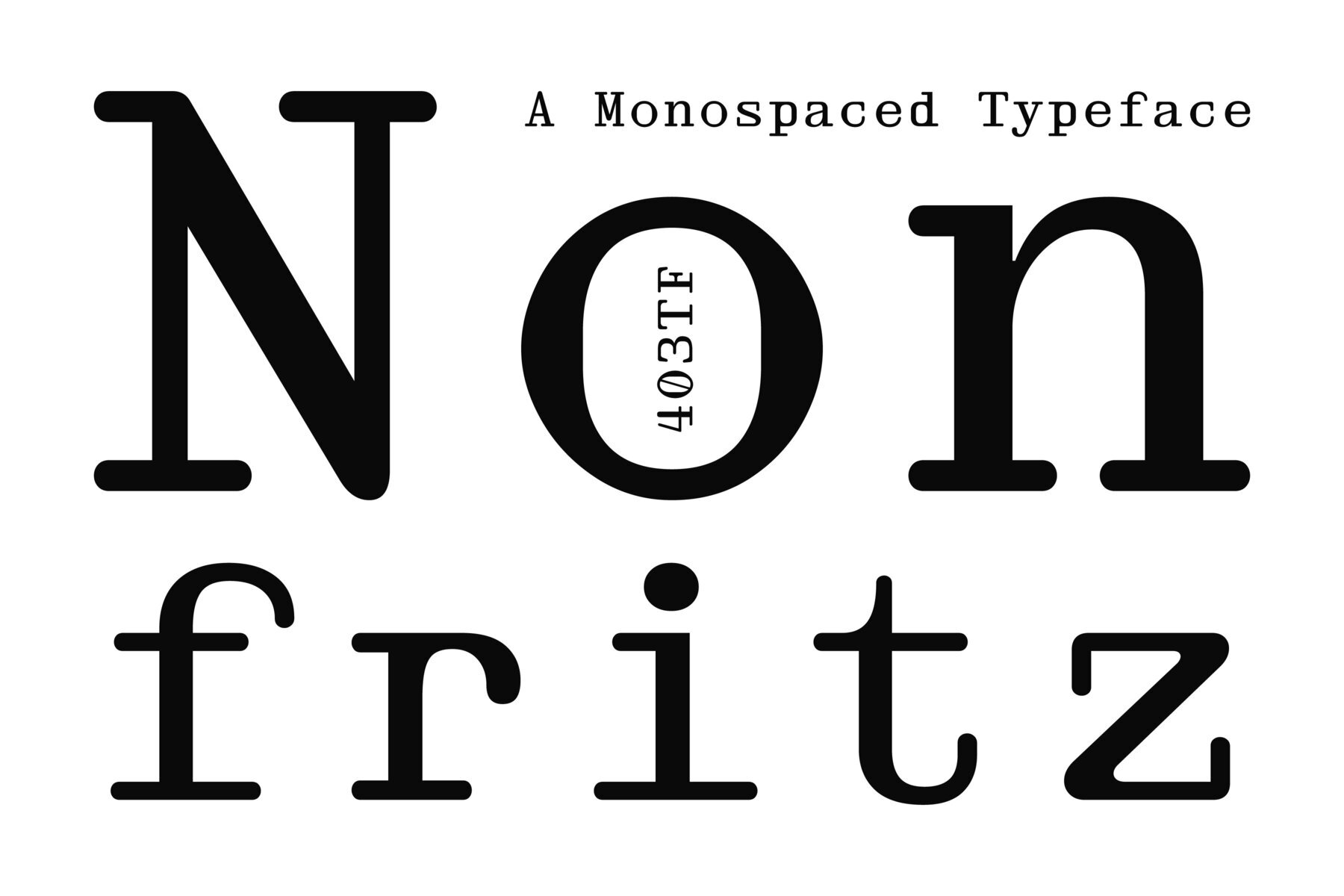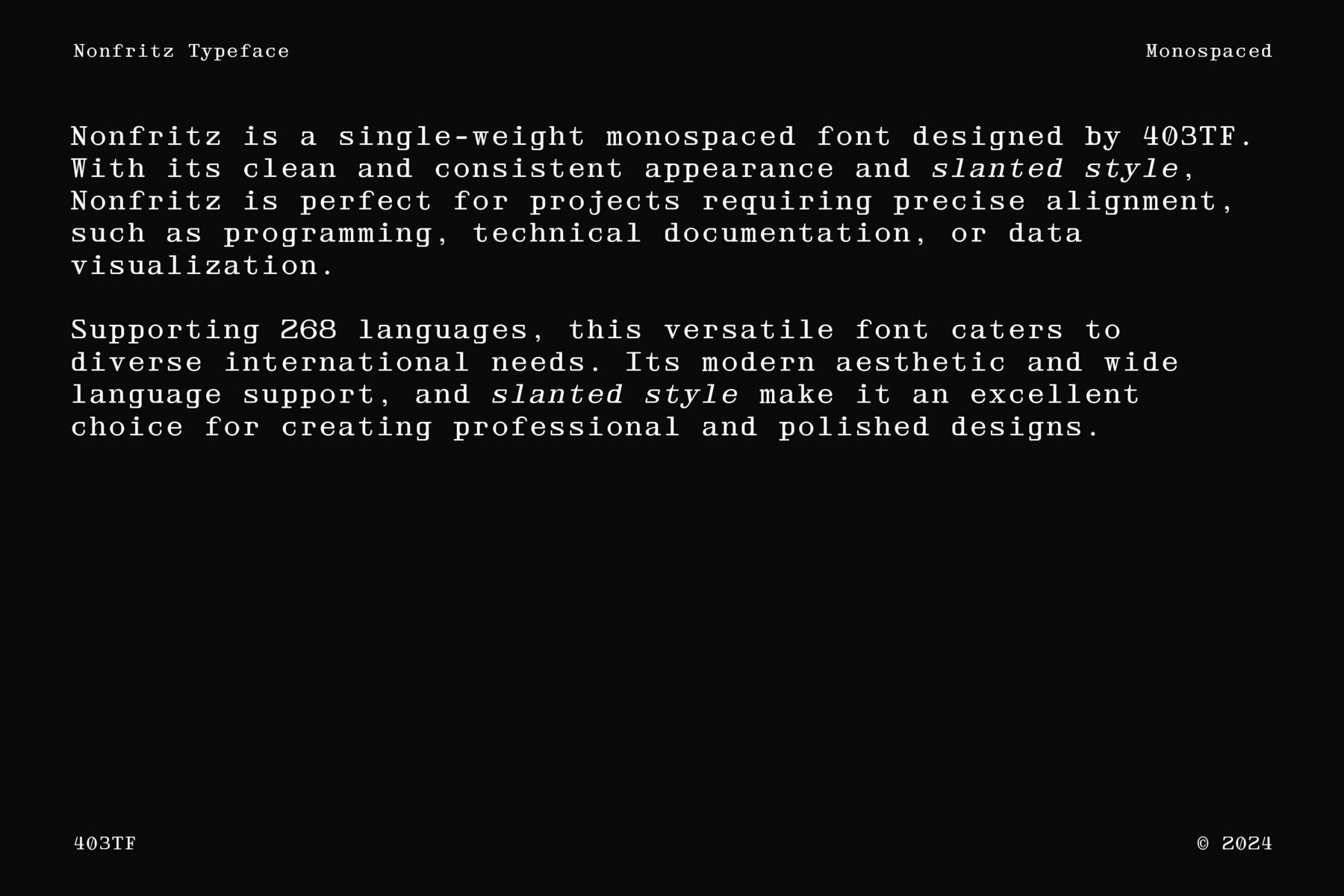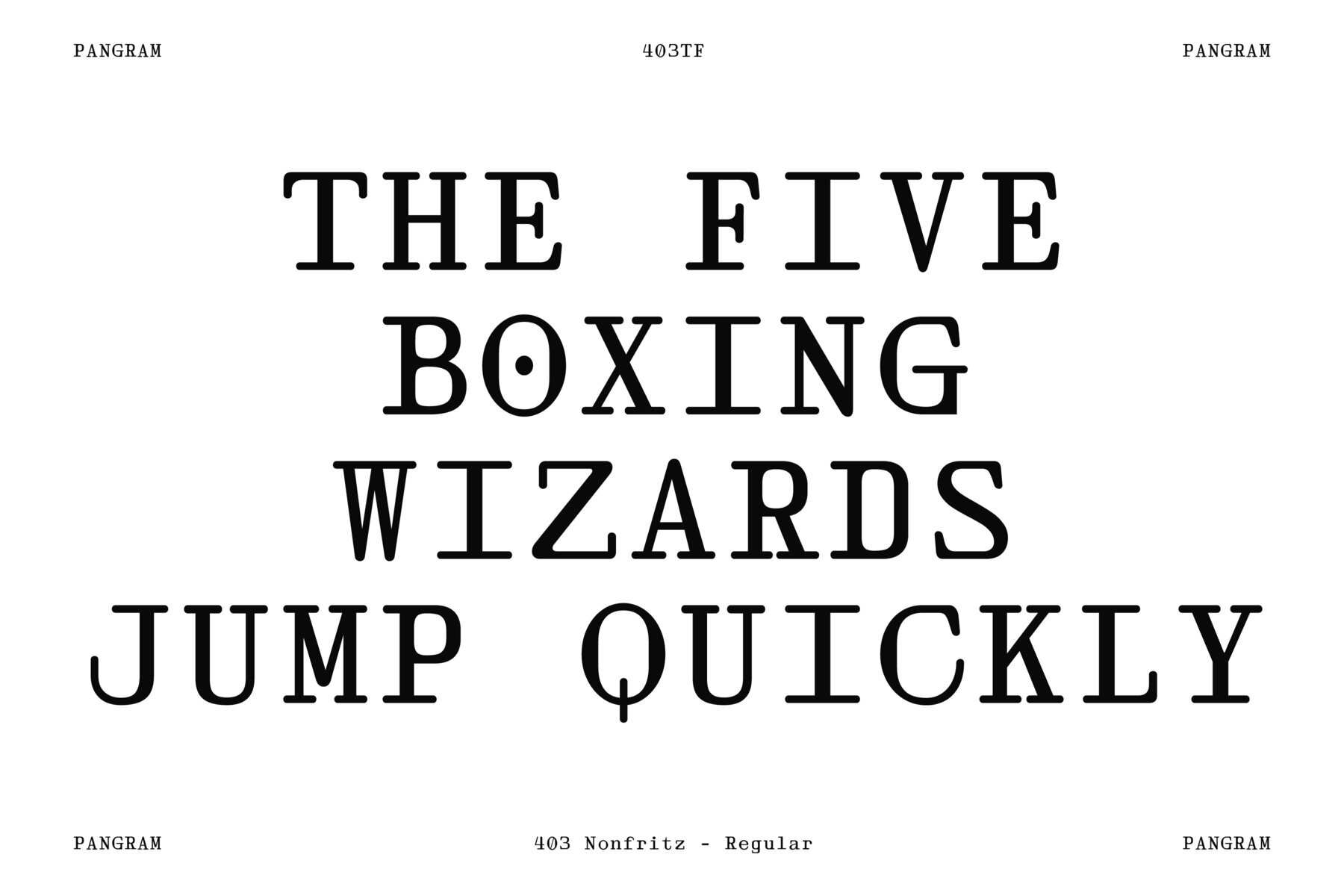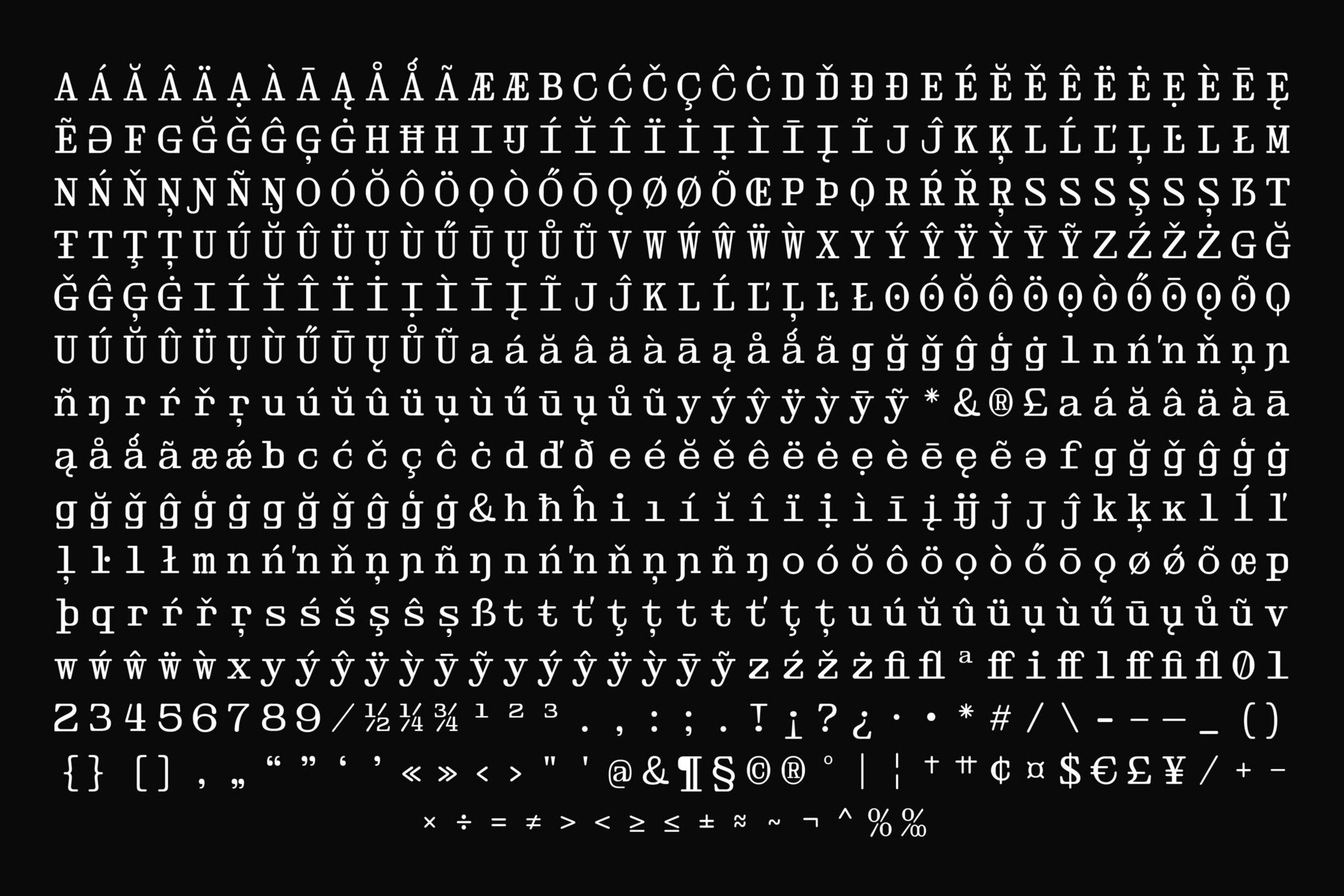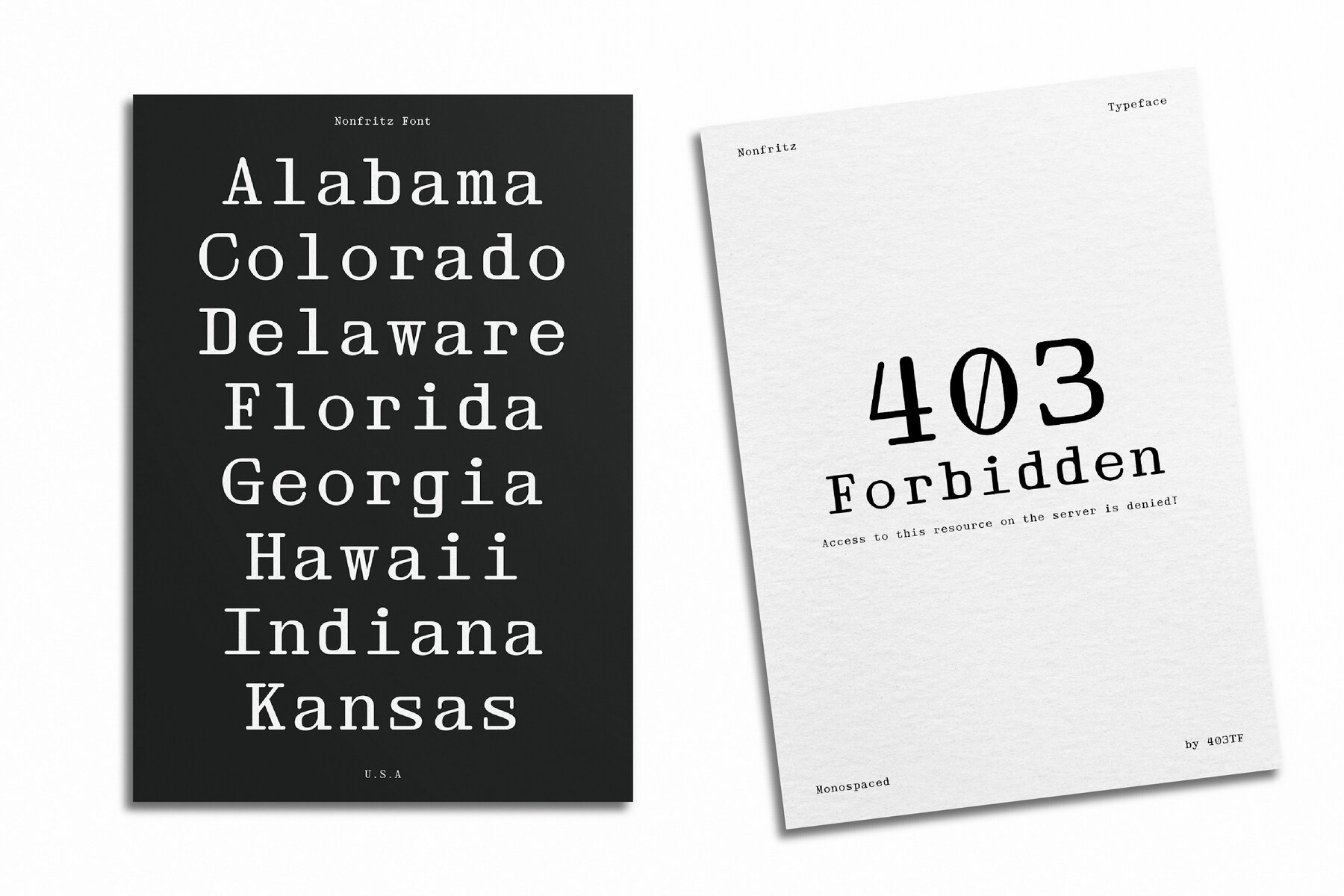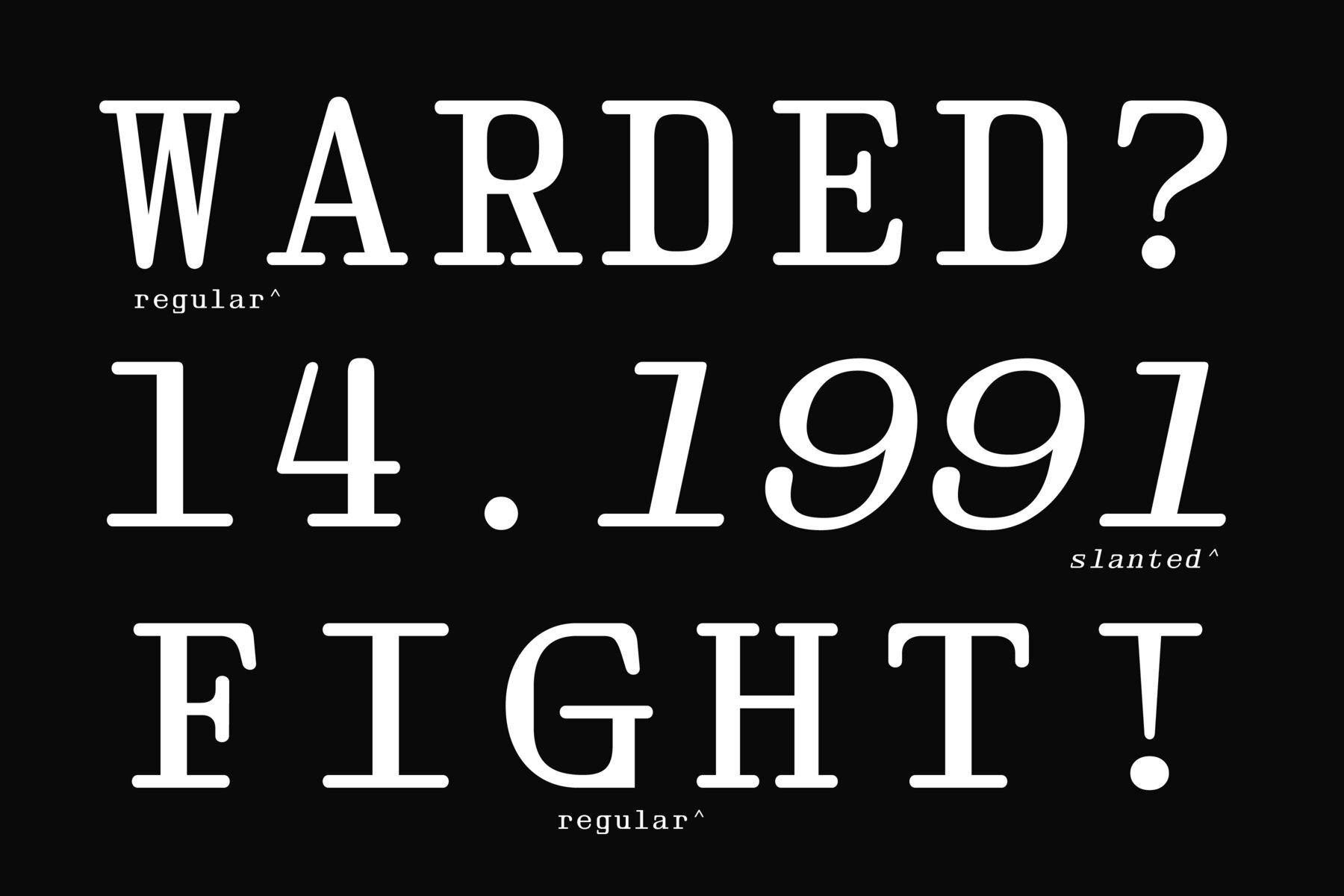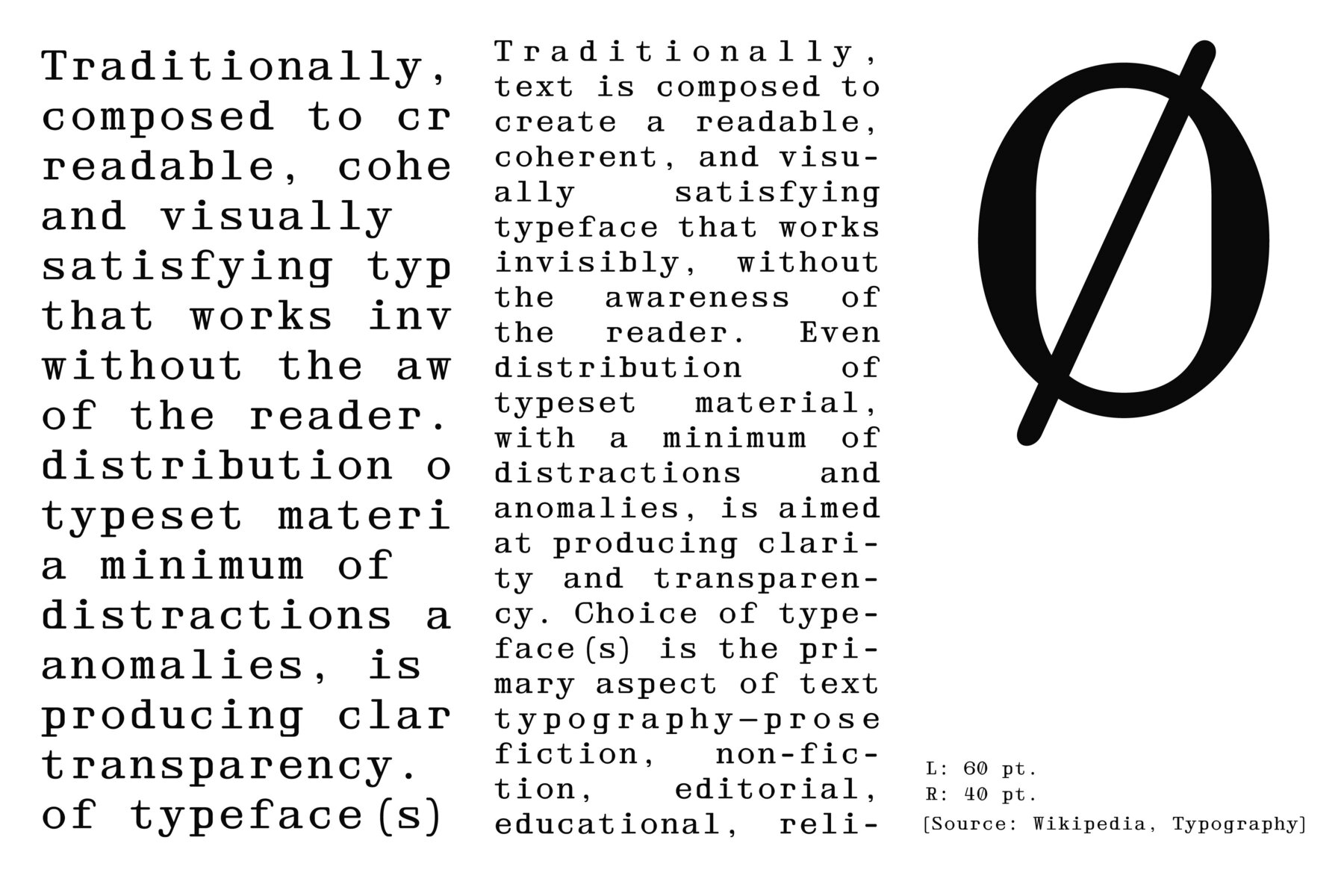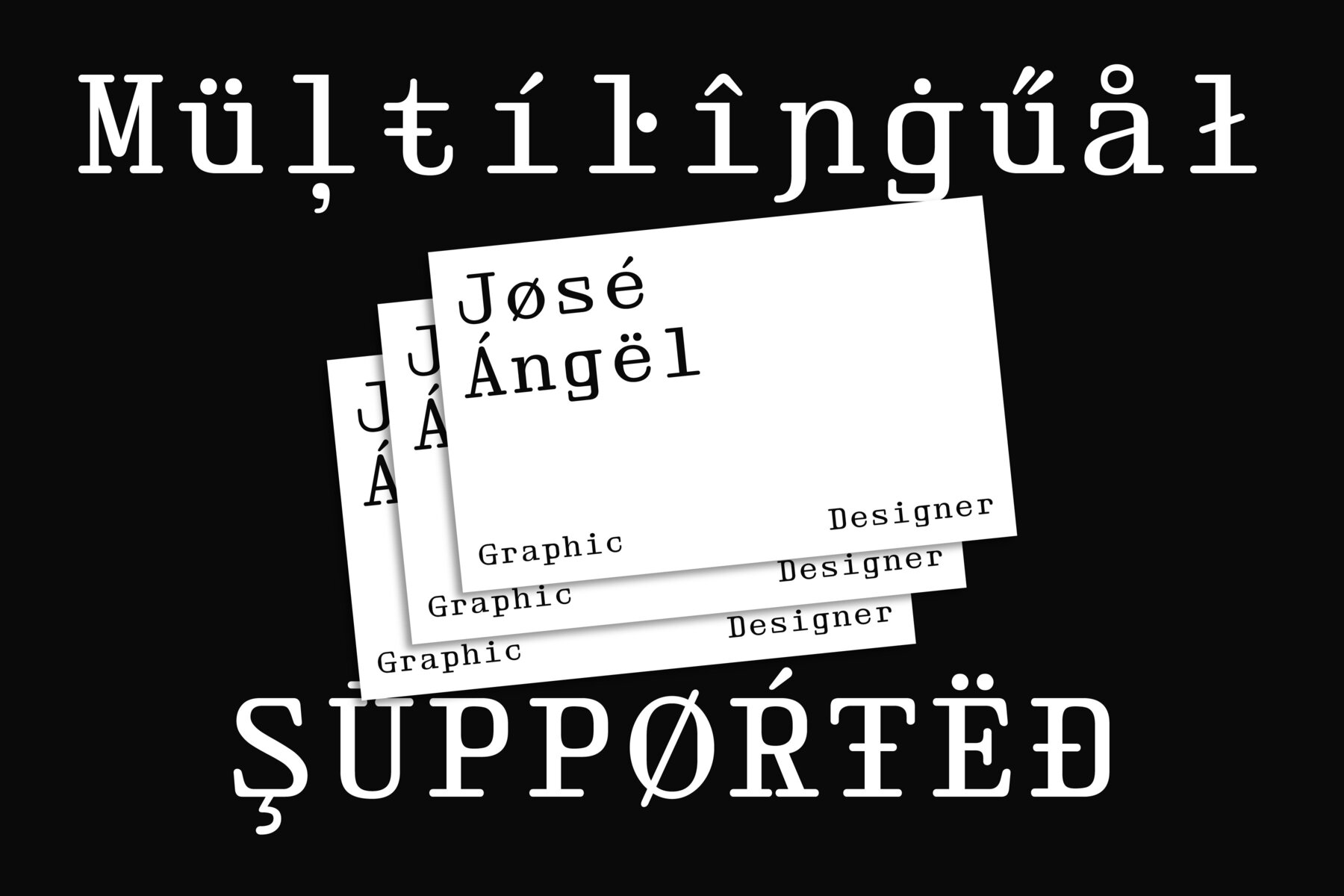
403 Nonfritz Font
Nonfritz is a single-weight monospaced font designed by 403TF. With its clean, consistent appearance and slanted style, Nonfritz is perfect for projects requiring precise alignment, such as programming, technical documentation, or data visualization. Supporting 268 languages, this versatile font caters to diverse international needs. Its modern aesthetic, wide language support, and slanted style make it an excellent choice for creating professional and polished designs.